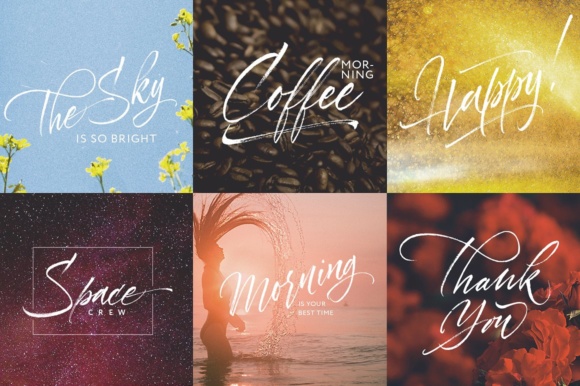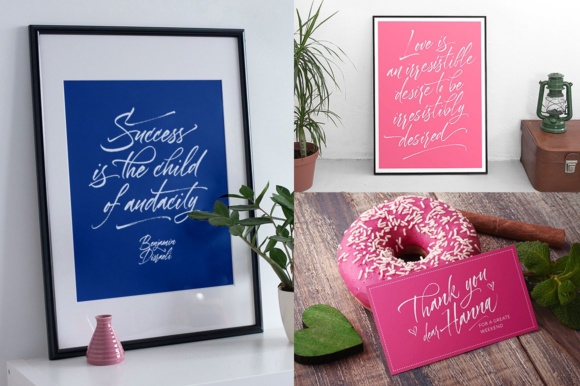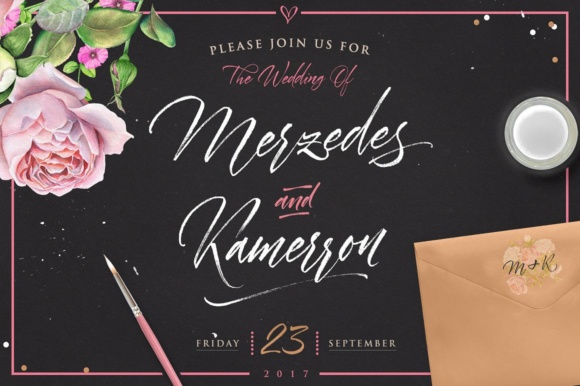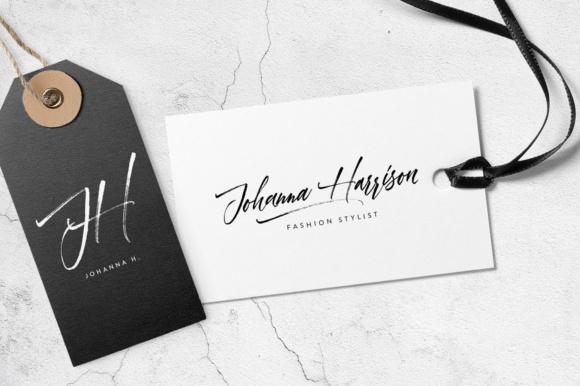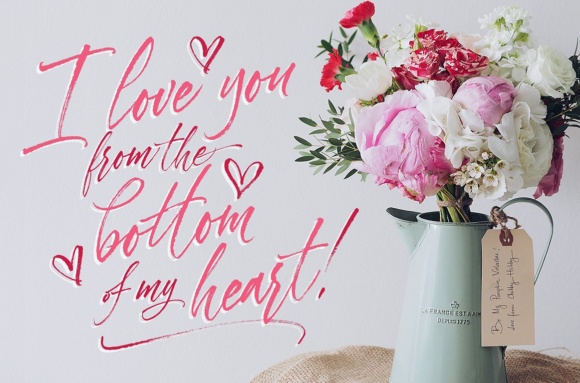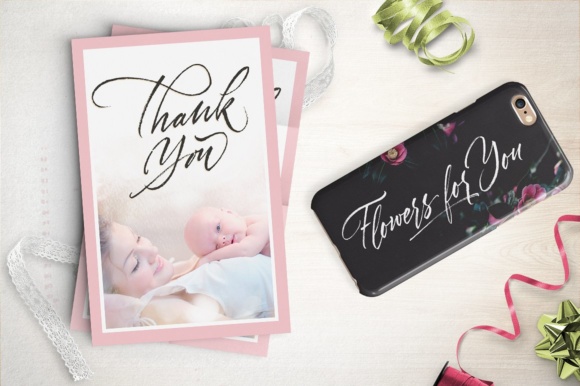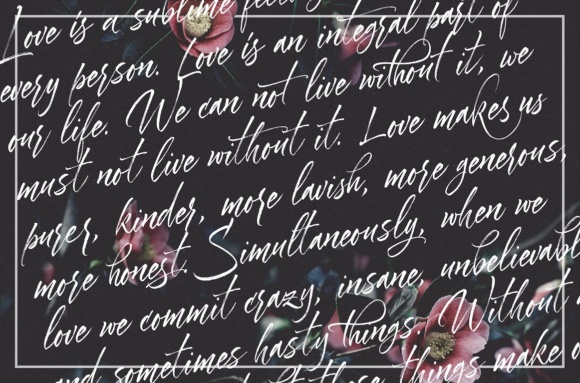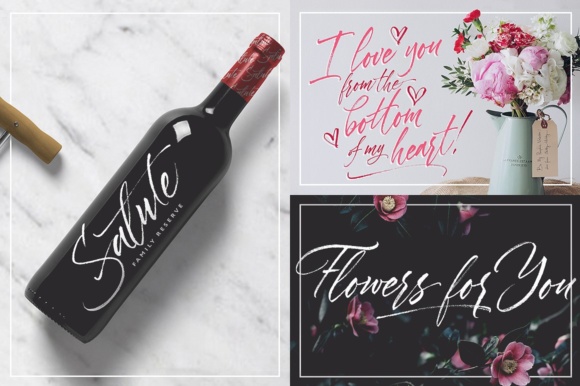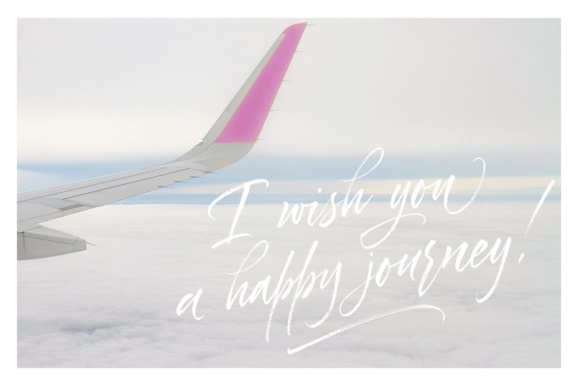
Dorrotthy Script Font
About Dorrotthy Script Font
The Dorrotthy is an elegant font which includes texture imperfections with an Italic rough appearance. It is perfect for branding, logos, wedding invitations and inspirational quotes.